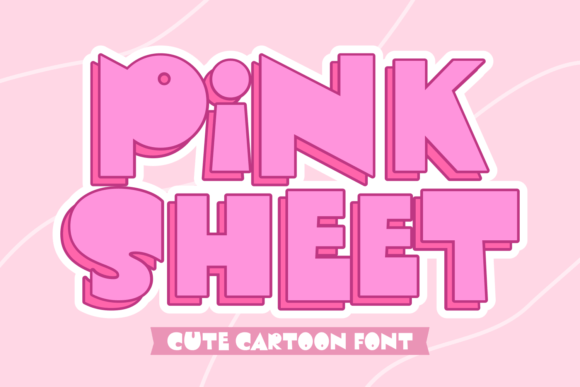
Pink Sheet Font: Add a Touch of Whimsy to Your Designs
In the world of typography, fonts play a crucial role in conveying the tone and personality of a design. If you’re looking for a font that exudes cuteness and charm, look no further than the Pink Sheet Font. This delightful display font is perfect for adding a touch of whimsy to your projects, and in this article, we’ll explore what makes it so special.
What is Pink Sheet Font?
Pink Sheet Font is a cute and charming display font that is sure to brighten up any design. Its whimsical and quirky nature makes it perfect for projects that require a playful touch. Whether you’re designing a logo, a poster, or a social media graphic, Pink Sheet Font is sure to add a dash of personality to your work.
Key Features of Pink Sheet Font
- Cute and charming: Pink Sheet Font is designed to be adorable and eye-catching, making it perfect for designs that require a touch of whimsy.
- Whimsical and quirky: This font has a playful nature that is sure to add a dash of personality to your designs.
- Display font: Pink Sheet Font is a display font, making it perfect for headlines, titles, and other attention-grabbing elements.
- Easy to read: Despite its playful nature, Pink Sheet Font is easy to read, making it perfect for designs that require a clear and concise message.
Why Use Pink Sheet Font?
There are many reasons why you should consider using Pink Sheet Font in your designs. Here are just a few:
1. Adds Personality to Your Designs
Pink Sheet Font is a great way to add a touch of personality to your designs. Its whimsical and quirky nature makes it perfect for designs that require a playful touch.
2. Perfect for a Variety of Projects
Pink Sheet Font is versatile and can be used in a variety of projects, including:
- Logos and branding
- Posters and flyers
- Social media graphics
- Invitations and greeting cards
Tips for Using Pink Sheet Font
Here are a few tips for using Pink Sheet Font:
1. Use it for Headlines and Titles
Pink Sheet Font is perfect for headlines and titles. Its bold and playful nature makes it perfect for grabbing attention.
2. Pair it with Other Fonts
Pink Sheet Font can be paired with other fonts to create a unique and interesting look. Try pairing it with a sans-serif font for a bold and modern look.
3. Experiment with Different Colors
Pink Sheet Font looks great in a variety of colors. Experiment with different colors to find the one that works best for your design.
Pink Sheet Font is a cute and charming display font that is sure to add a touch of whimsy to your designs. Its playful and quirky nature makes it perfect for a variety of projects, from logos and branding to posters and social media graphics. With its ease of use and versatility, Pink Sheet Font is a great addition to any designer’s toolkit.
- What is Pink Sheet Font? Pink Sheet Font is a cute and charming display font that is perfect for adding a touch of whimsy to your designs.